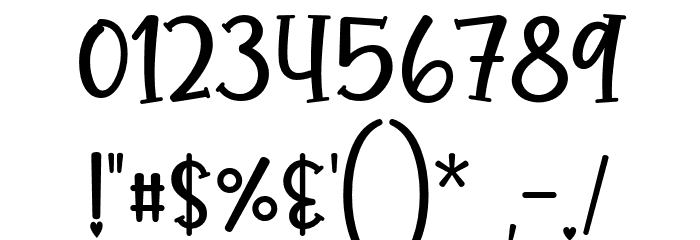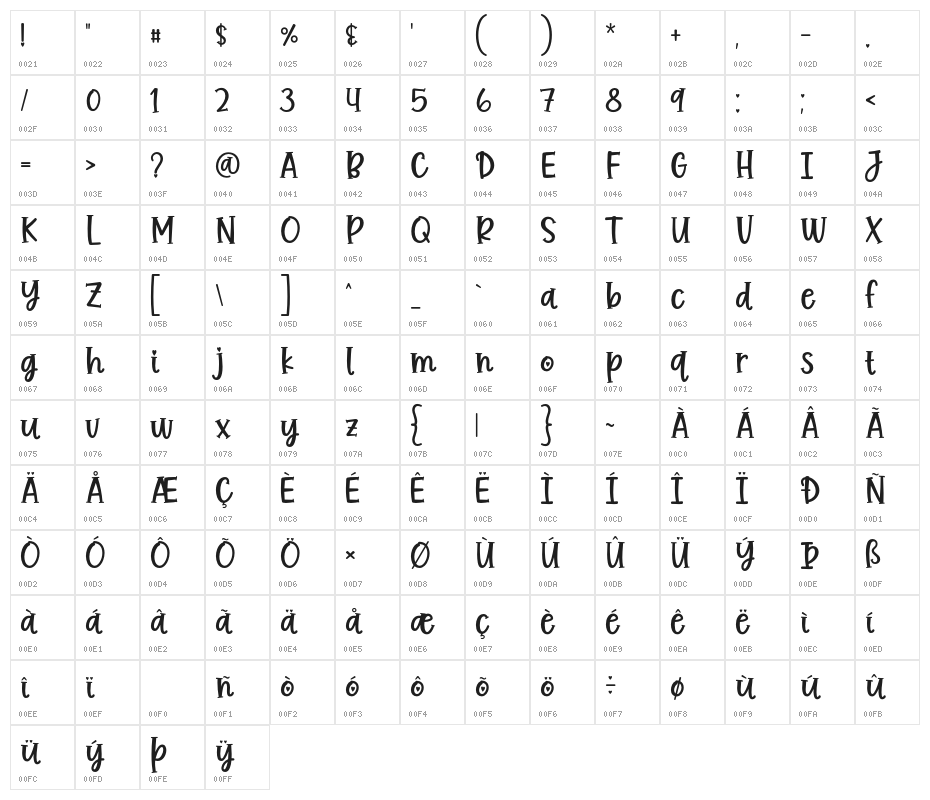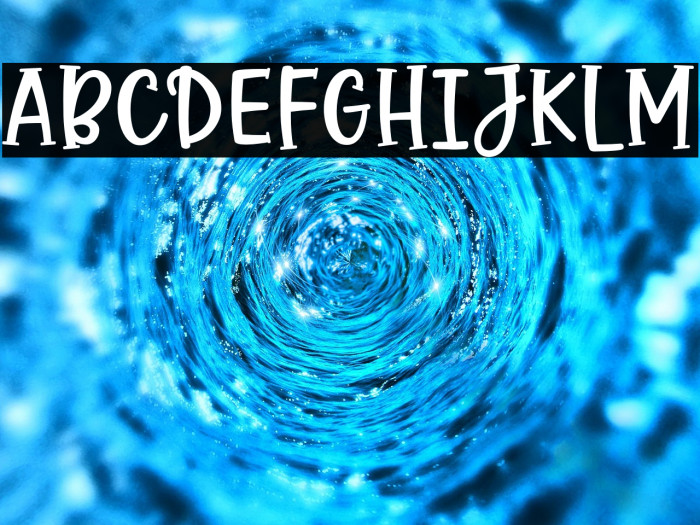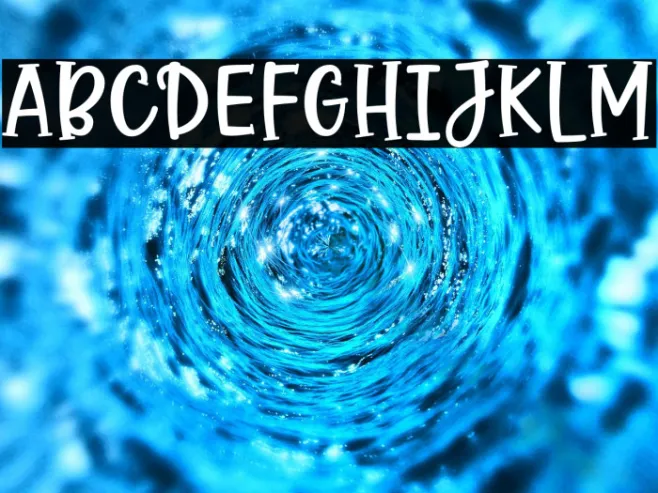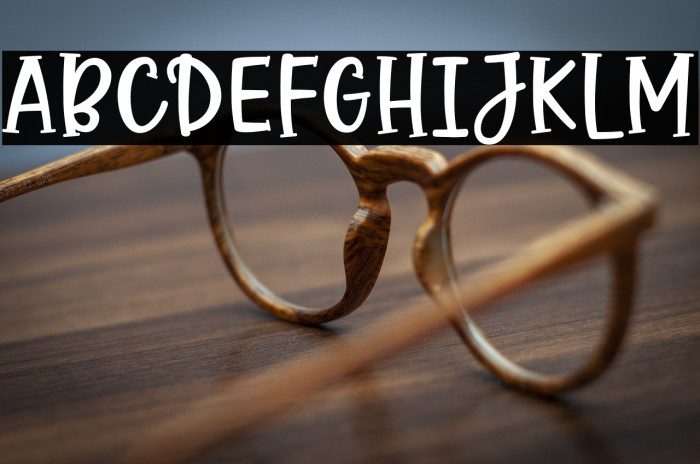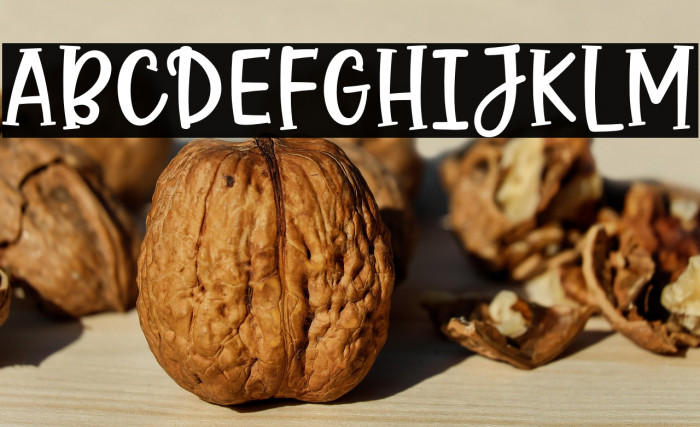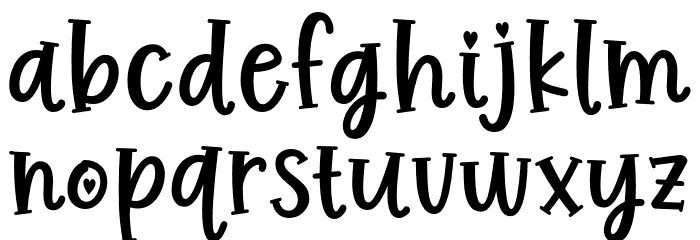
CalmDownBeibeh Font
CalmDownBeibeh Description
This playful and whimsical font features a hand-drawn style with a casual, friendly appearance. The letters are slightly irregular, giving it a charming and approachable feel. The uppercase characters are bold and expressive, while the lowercase letters maintain a consistent flow with subtle variations in stroke width. The numerals are clear and easy to read, matching the overall playful aesthetic. Special characters are creatively designed, adding to the font's unique personality. This font is perfect for projects that require a fun and informal touch, such as children's books, greeting cards, or playful branding.
| Proposed Projects | Ideal for children's books, greeting cards, playful branding, and informal invitations. |